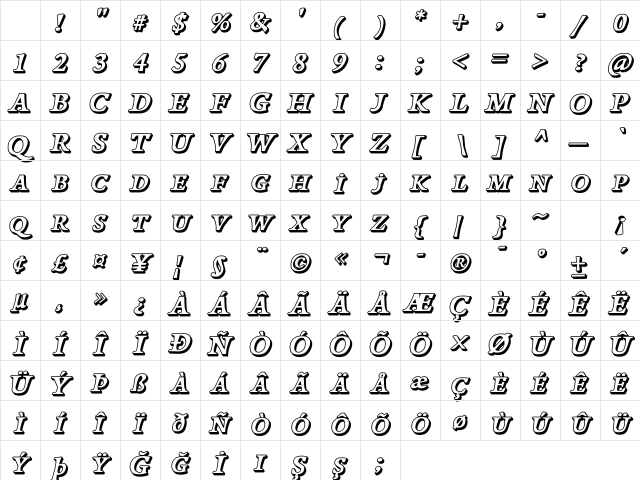
Complete Papillons Outline Italic glyph index. Displaying only characters natively supported by Papillons Outline Italic font.
Papillons Outline is built around its visual character rather than neutral utility - its distinctive forms are designed to make an impression at display sizes. The slanted form adds forward momentum and visual energy.
Font Pairing: Pair with a clean neutral sans-serif for body copy to let Papillons Outline's character lead without overwhelming the composition.
Pro Tip: Use Papillons Outline exclusively at display sizes - it was designed to be seen, not read at length. Let a neutral companion handle body copy.